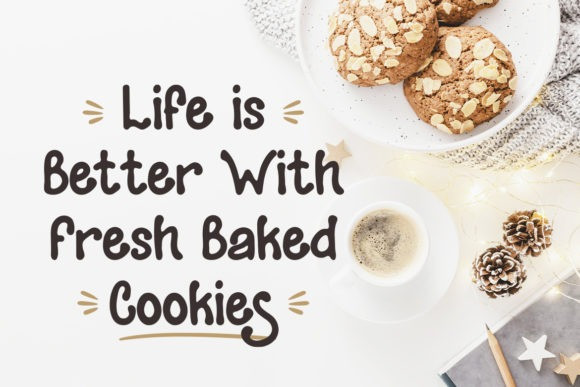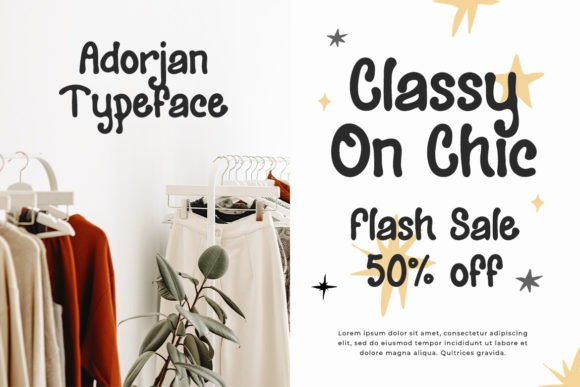
Adorjan Font
Adorjan Font is a sweet and neat paint brushed handwritten font. Dainty and joyful, this font will be ideal for writing neat cards, album cover, quotes, cafe menu, coffee-themed, greeting card or any other design that may need a personalized touch!